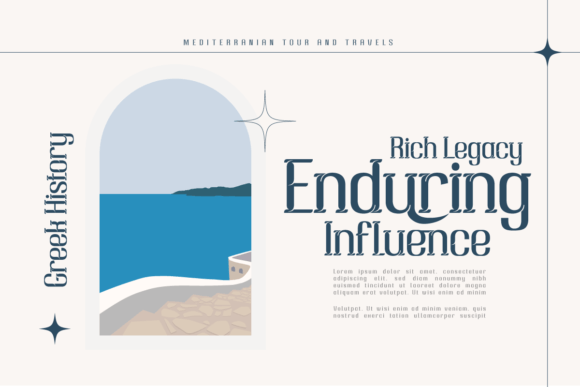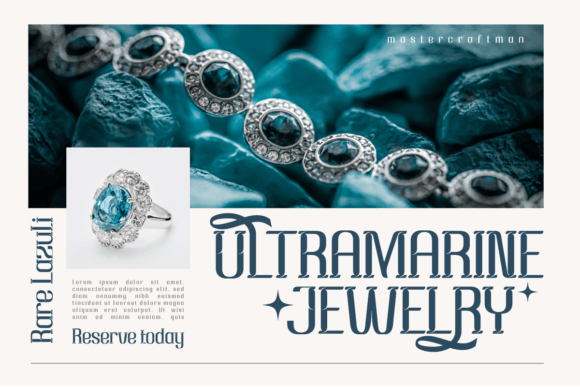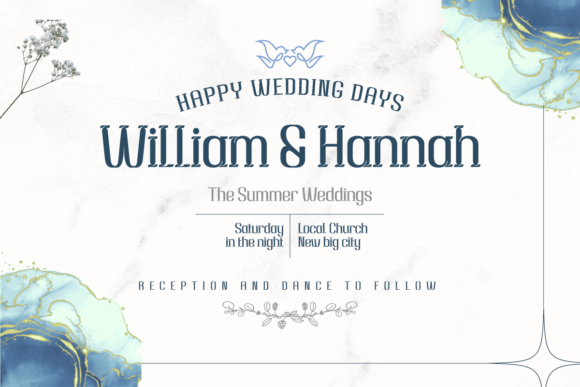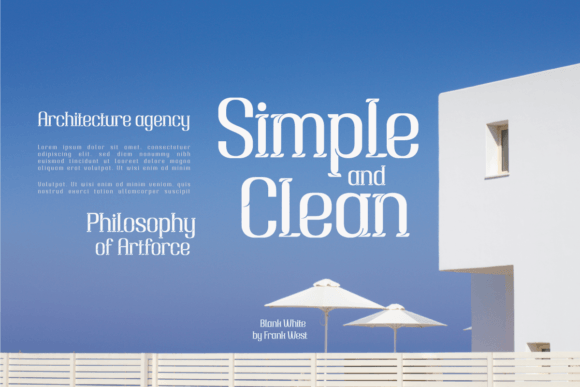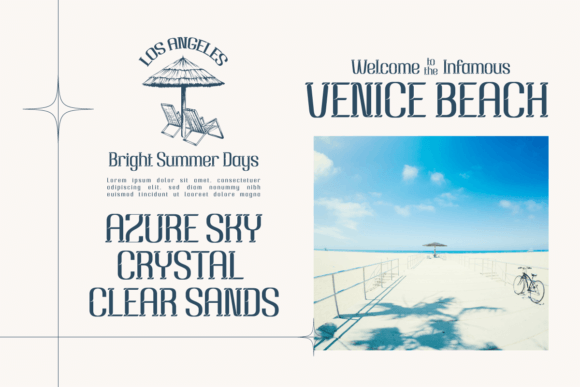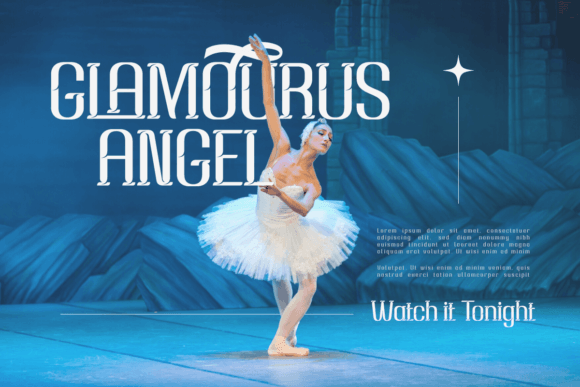
Introduction to Hoojuy Font
As a designer, there’s nothing quite like the thrill of discovering a new font that perfectly captures the essence of your creative project. You’re brainstorming ideas, scrolling through your favorite design resources, and suddenly, it hits you – the perfect font to elevate your concept and make it truly stand out. For many designers, this moment is a game-changer, and it’s exactly what happens when you stumble upon the Hoojuy Font.
With its classic display typeface and retro modernist vibe, the Hoojuy Font is an absolute gem for designers seeking to add a touch of sophistication and style to their work. Whether you’re working on a project with a transparent background or need a high-quality font to make a statement, this font is sure to deliver. And the best part? It’s available for a free download, making it an invaluable design resource for creatives of all levels.
So, what makes the Hoojuy Font so valuable to designers? For one, its stylish and refined attributes allow it to effortlessly blend in with a wide range of design styles, from modern to vintage. With its versatility and high quality, it’s no wonder that the Hoojuy Font has become a go-to choice for designers looking to take their projects to the next level.
Key Features of Hoojuy Font
- High-quality design resource ideal for creative projects and designs with a unique, modern aesthetic.
- Perfect for use in digital designs, including logos, icons, and typography, thanks to its versatility and modern design.
Honest Review: Hoojuy Font
I recently had the opportunity to work with the Hoojuy Font, and I must say it’s been a great addition to my design resource library. The font is available for a free download, making it a fantastic option for those on a budget or just starting out with a creative project.
What I love about the Hoojuy Font is its high quality and versatility. It comes in a variety of weights and styles, making it perfect for both body text and headlines. The font also features a transparent background, which is a huge plus for designers who want to easily integrate it into their designs.
- High quality and professional design
- Available in various weights and styles
As with any font, there are some limitations to consider:
- May not be suitable for complex or detailed designs
- Some users may find the font too generic
Overall, I’m very impressed with the Hoojuy Font. It’s a solid choice for designers looking for a reliable and high-quality font to use in their creative projects. I would definitely recommend it to anyone looking for a free design resource.
Hoojuy Font is commonly used in creative projects such as graphic design, digital art, and web design. Its high-quality design makes it an ideal choice for a wide range of applications, from business cards to social media graphics.